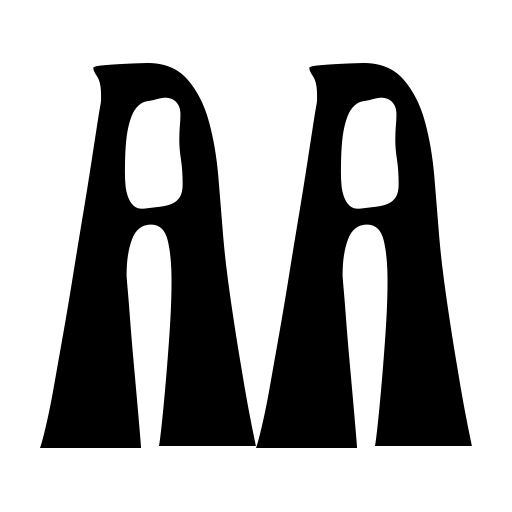
Bacesy Display is a bold and playful serif font with a distinct retro vibe, featuring tall, narrow letterforms and quirky variations in stroke width that give it a lively character. Its high contrast and unique shapes make it perfect for eye-catching headlines, logos, and creative projects that want to convey a fun, vintage-inspired personality. This font works best in display sizes where its energetic style can truly stand out.
Bacesy Display Font
About Bacesy Display Font
| Font family | Bacesy Display Font |
| Designer | Faras Dina |